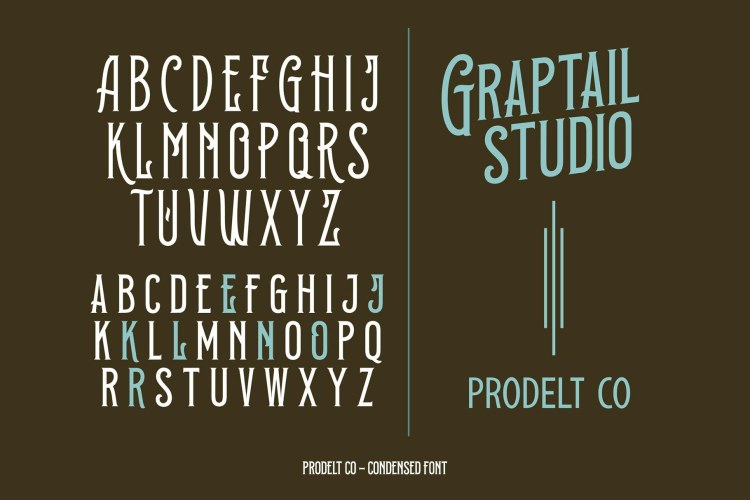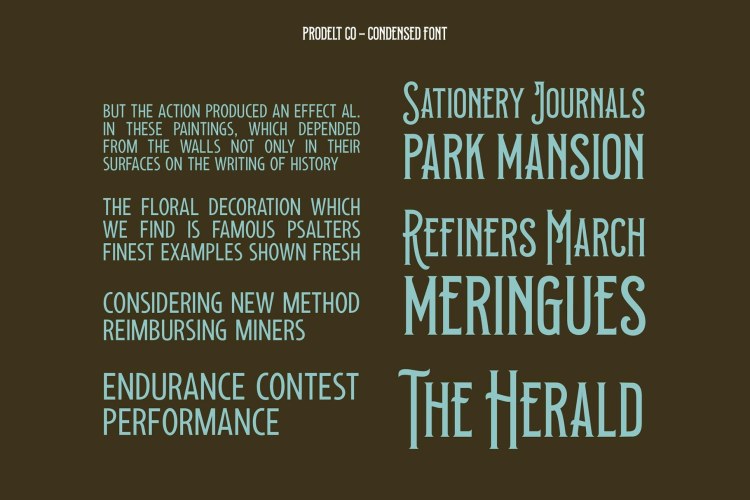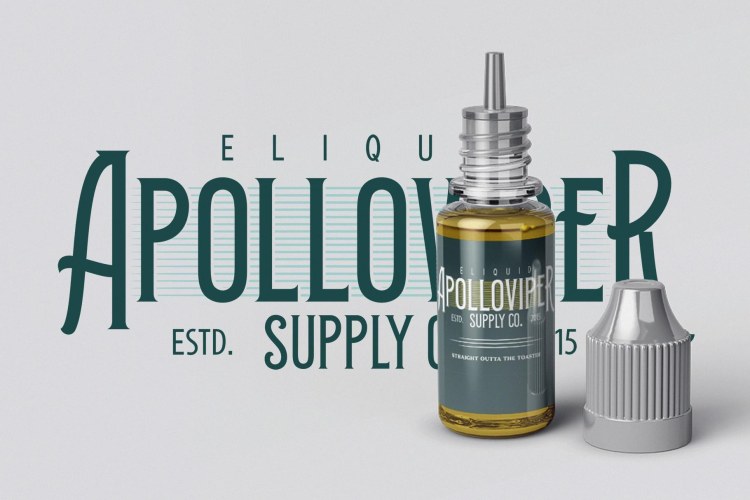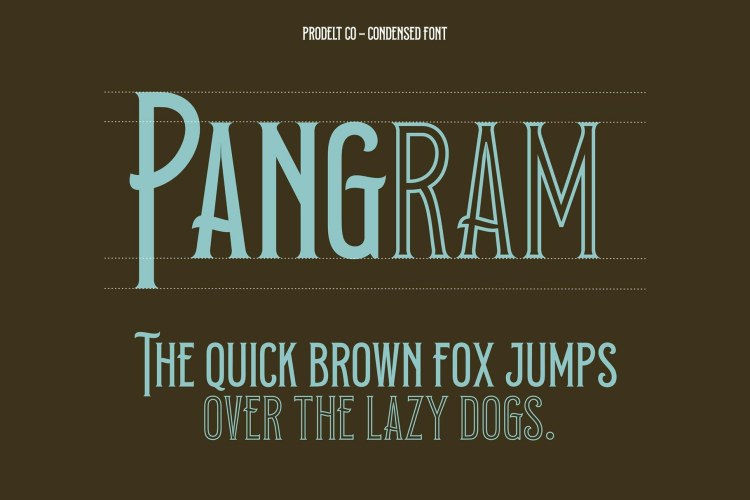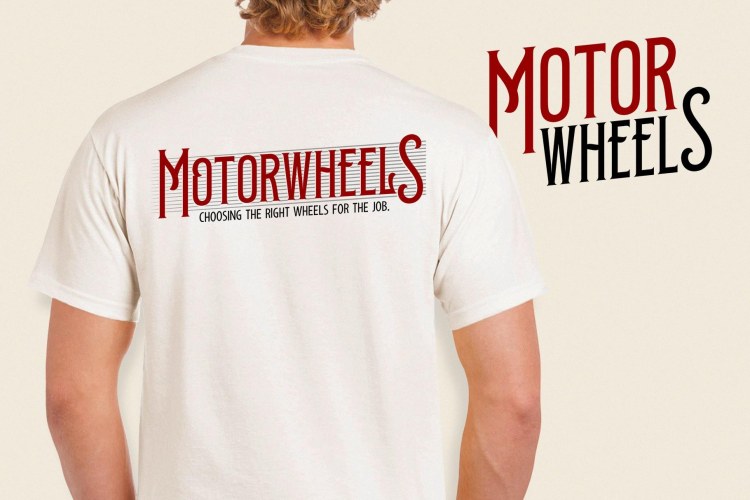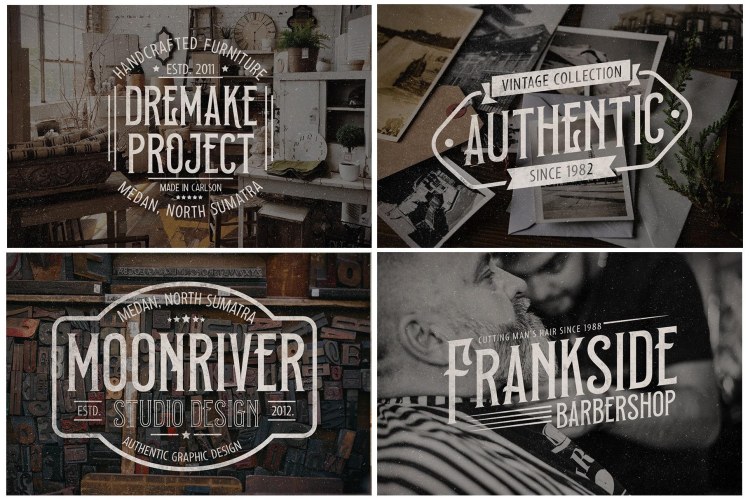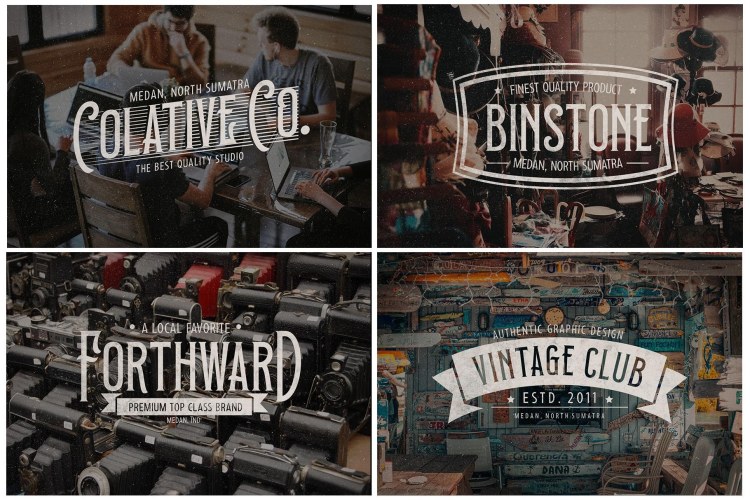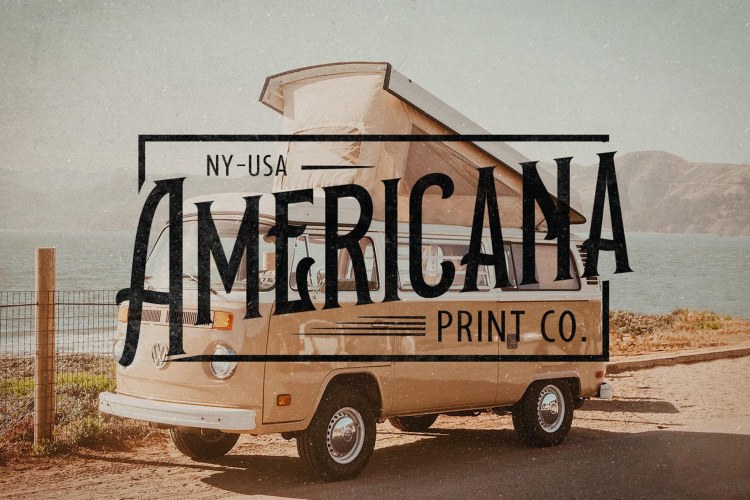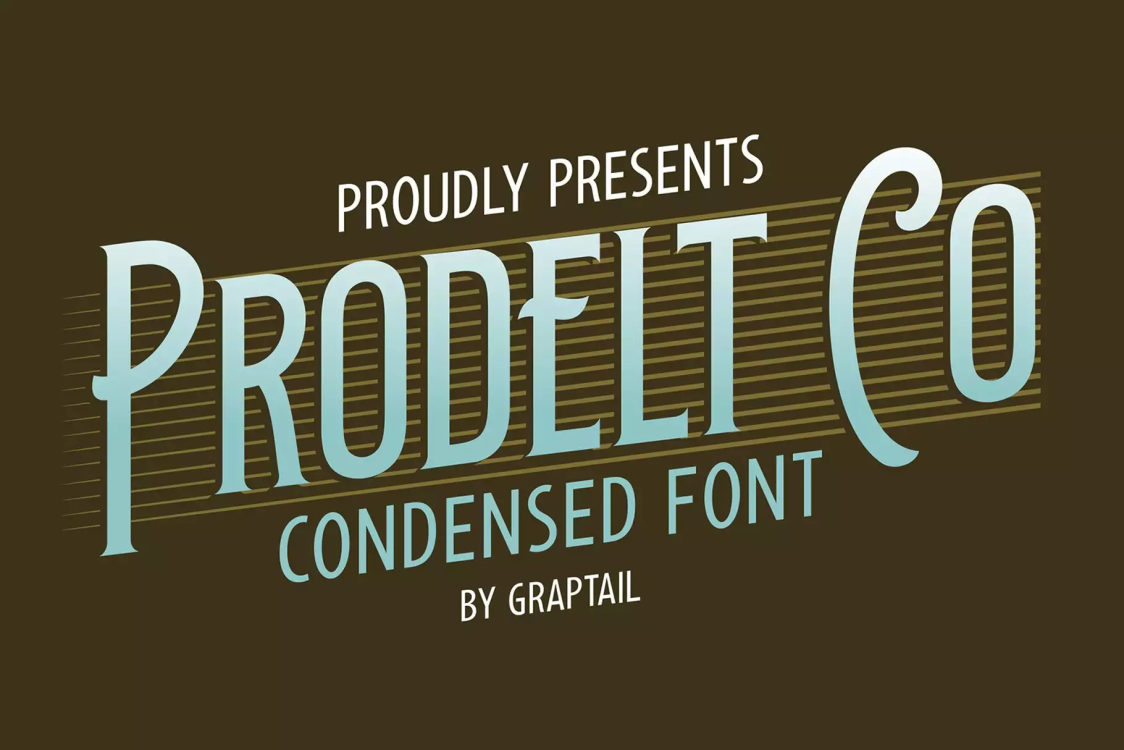
Prodelt Co Font Family
Prodelt Co – comes with a condensed font style from the look of vintage and retro styles that are inspired by the form of classic labels that are applied to products. These characteristics are reflected in all types of letters and define the detail and color of the overall type. A wide variety of alternative styles allow versatile design options and work perfectly for headlines, logos, posters, packaging, T-shirts, postcards and more.
Prodelt Co Font Family is a Font Family font that brings a professional and versatile look to your projects. Prodelt Co – comes with a condensed font style from the look of vintage and retro styles that are inspired by the form of classic labels that are applied to products.